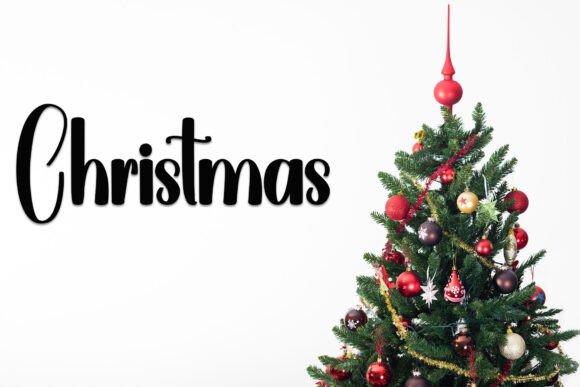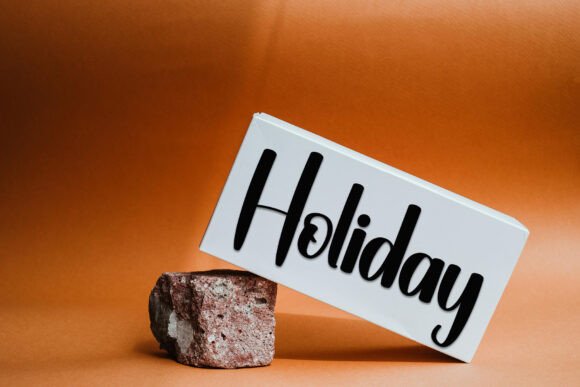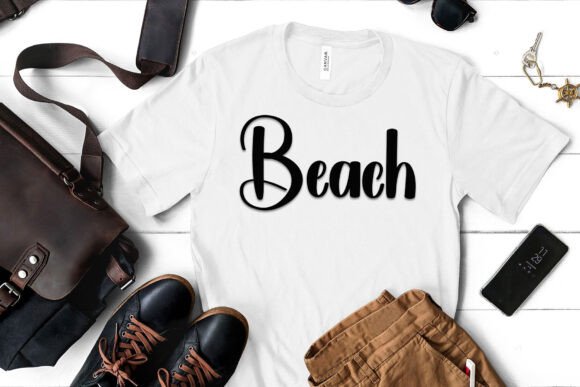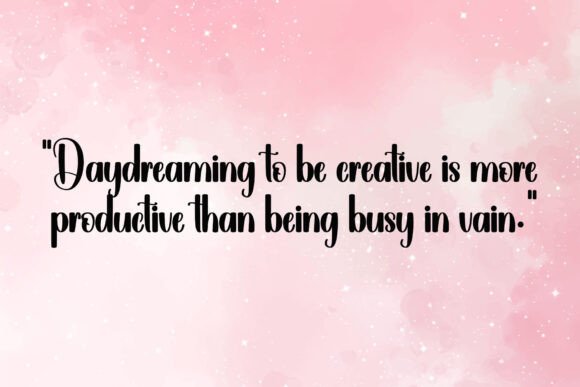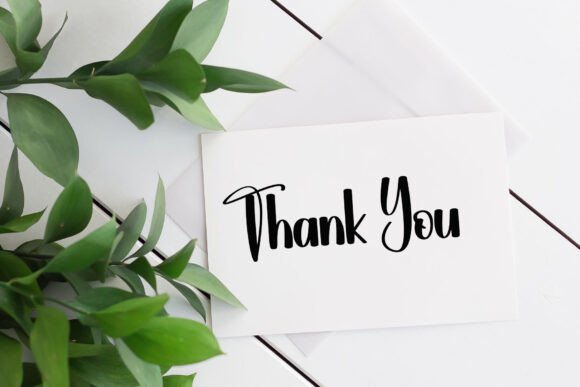
The Bestie Font: A Timeless, Elegant Companion for Your Design Journey
I’ll never forget the moment I stumbled upon the Bestie font. I was working on a project for a client who wanted a custom wedding invitation, and I was struggling to find the perfect font. The design needed to be elegant, sophisticated, and timeless. As I scrolled through my font library, I came across Bestie, and it was love at first sight. Its incredibly distinct and timeless style won me over, and I knew I had found the perfect fit.
So, what makes Bestie so special? Here are a few things I adore about this beautiful handwritten font:
• ✨ Elegant touch: Bestie exudes sophistication and refinement, making it perfect for projects that require a high-end feel.
• ✅ Highly legible: Despite its elegant nature, Bestie is incredibly easy to read, even at smaller font sizes.
• 💫 Versatile: This font is suitable for a wide range of projects, from wedding invitations and branding to packaging and digital designs.
Of course, no font is perfect, and Bestie has a few minor quirks:
• 🤔 Limited availability of certain characters: Some users have reported that certain special characters or glyphs are not readily available.
• ⚠️ May not be suitable for very large or very small font sizes: While Bestie looks stunning at most font sizes, it may lose some of its elegance when scaled up or down excessively.
One of the standout features of Bestie is its support for OpenType features, including glyphs and stylistic alternates. These features allow you to add more variety and interest to your designs. For example, you can use glyphs to create custom ligatures, or switch between different stylistic alternates to create a more dynamic look.
The Story Behind Bestie: Designer Inspiration
Bestie was created by a talented font designer who wanted to craft a font that was both elegant and approachable. Inspired by classic handwritten scripts, the designer aimed to create a font that would be perfect for a wide range of projects, from formal invitations to digital designs. With its timeless style and incredibly distinct character, Bestie has become a favorite among designers and crafters alike.
Q: What makes Bestie so special?
A: Bestie’s unique blend of elegance and approachability makes it a standout font. Its highly legible and versatile design makes it perfect for a wide range of projects.
Q: Is Bestie available in different font weights?
A: Currently, Bestie is available in a single font weight. However, some font packages may include additional weights or variations.